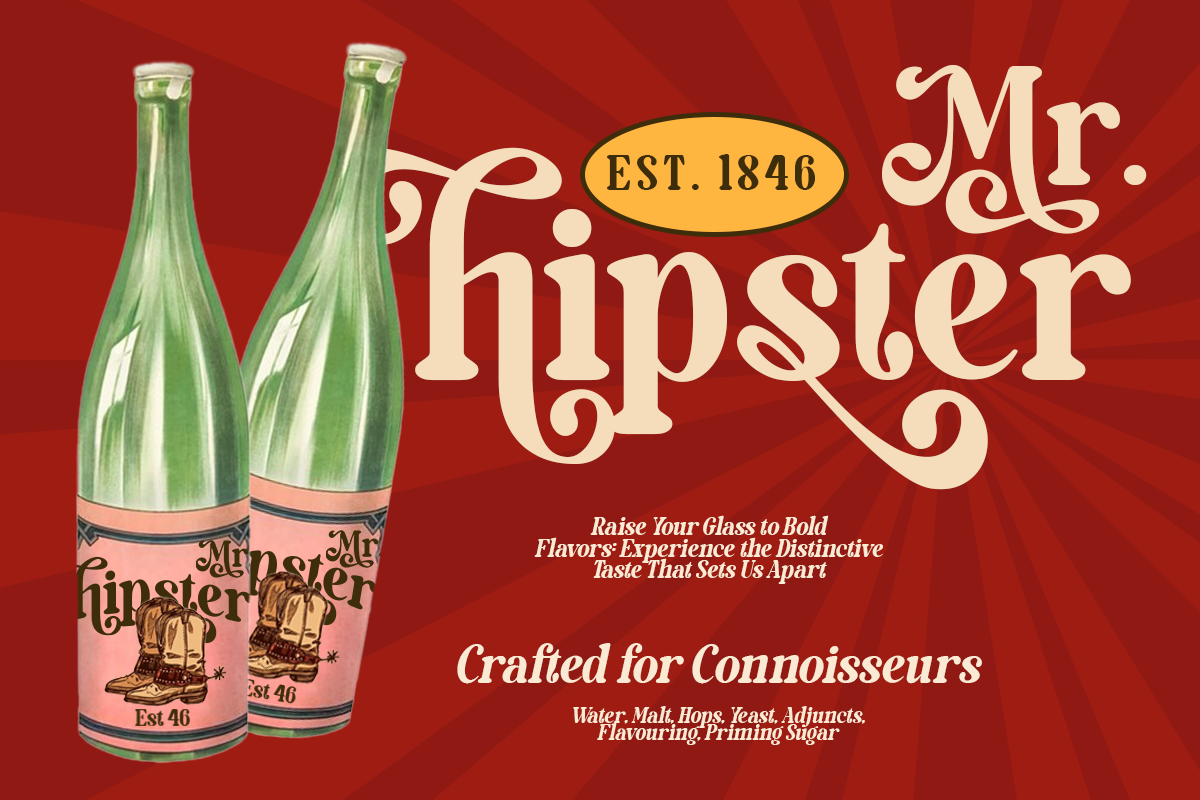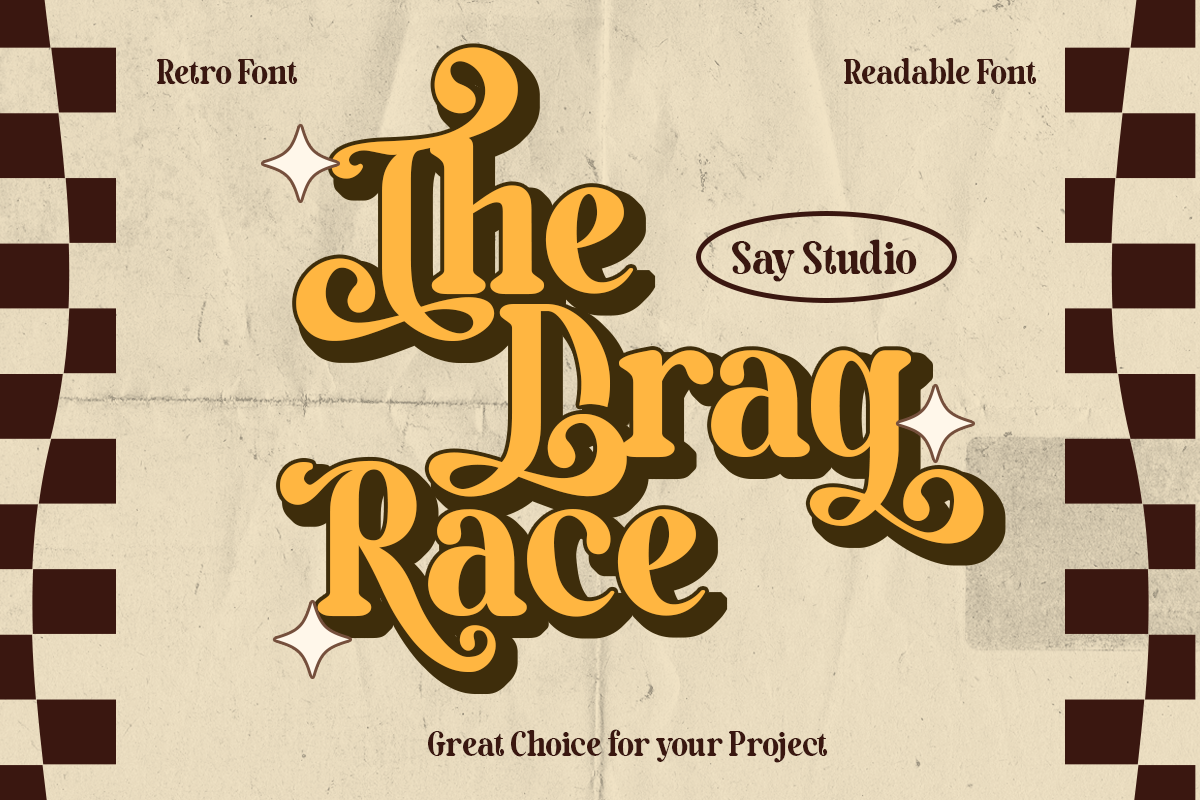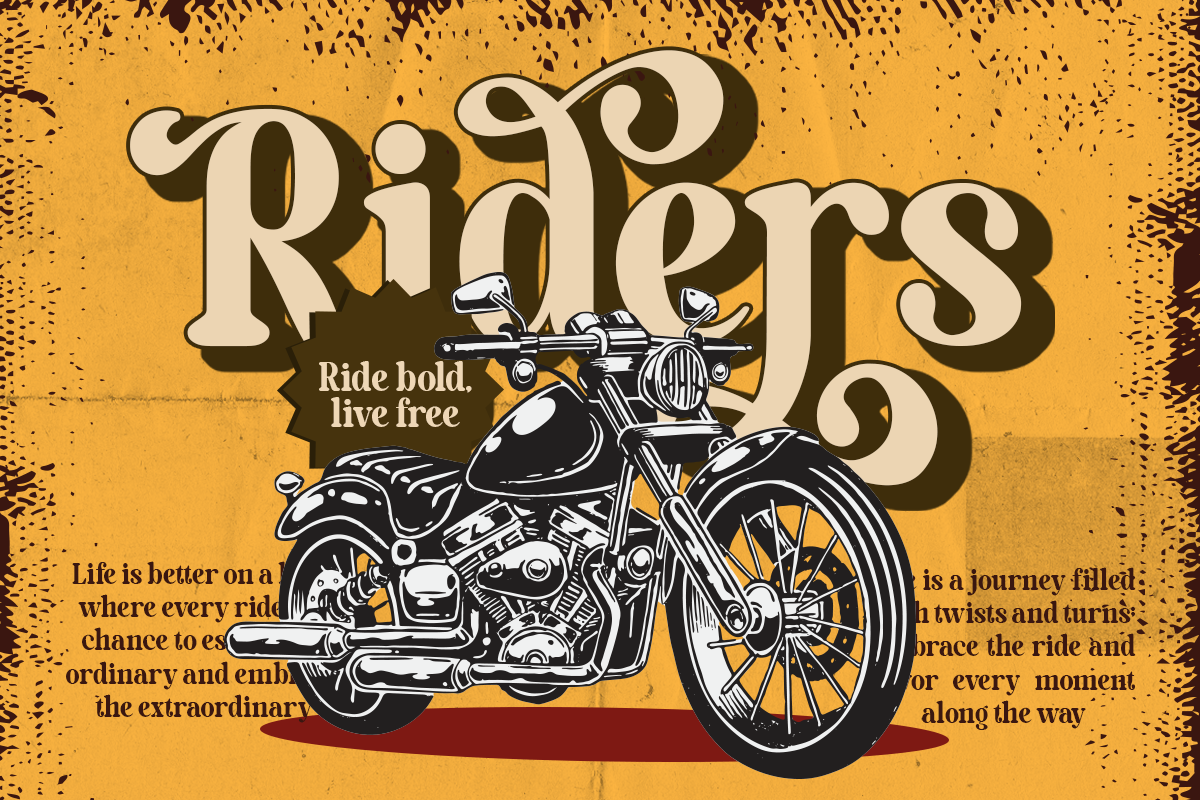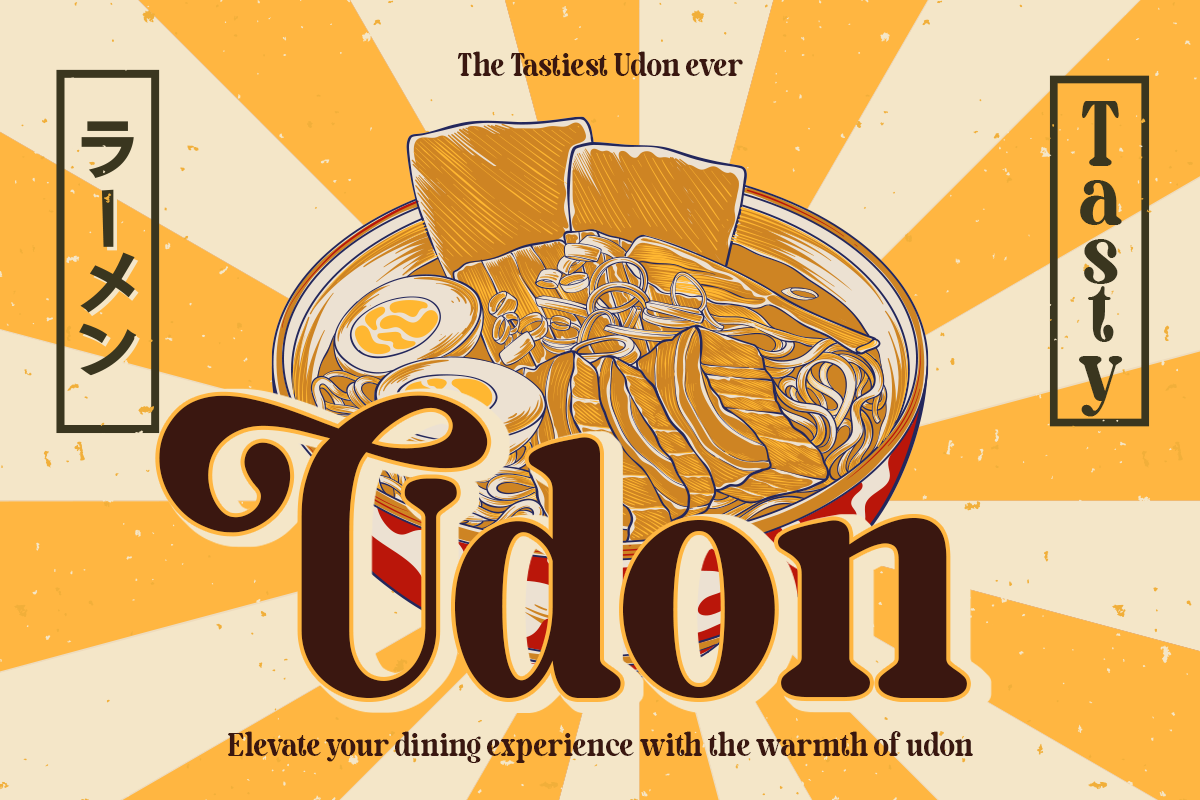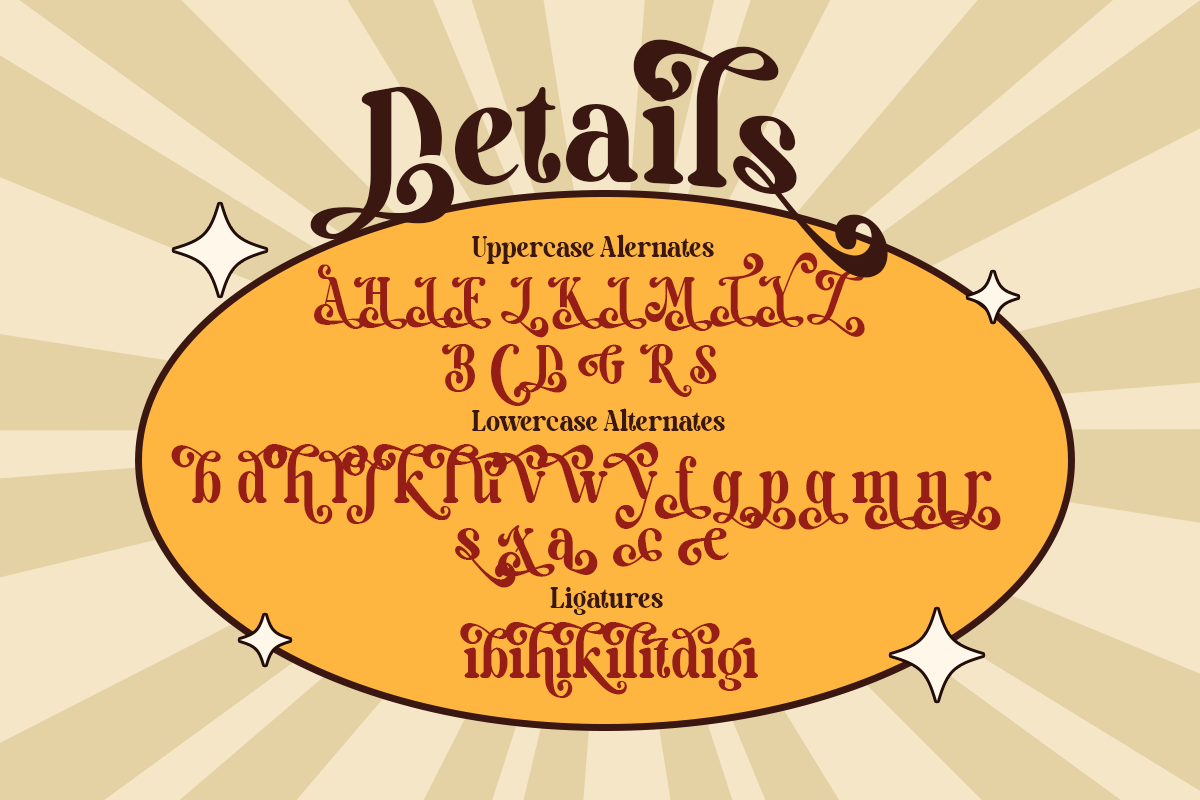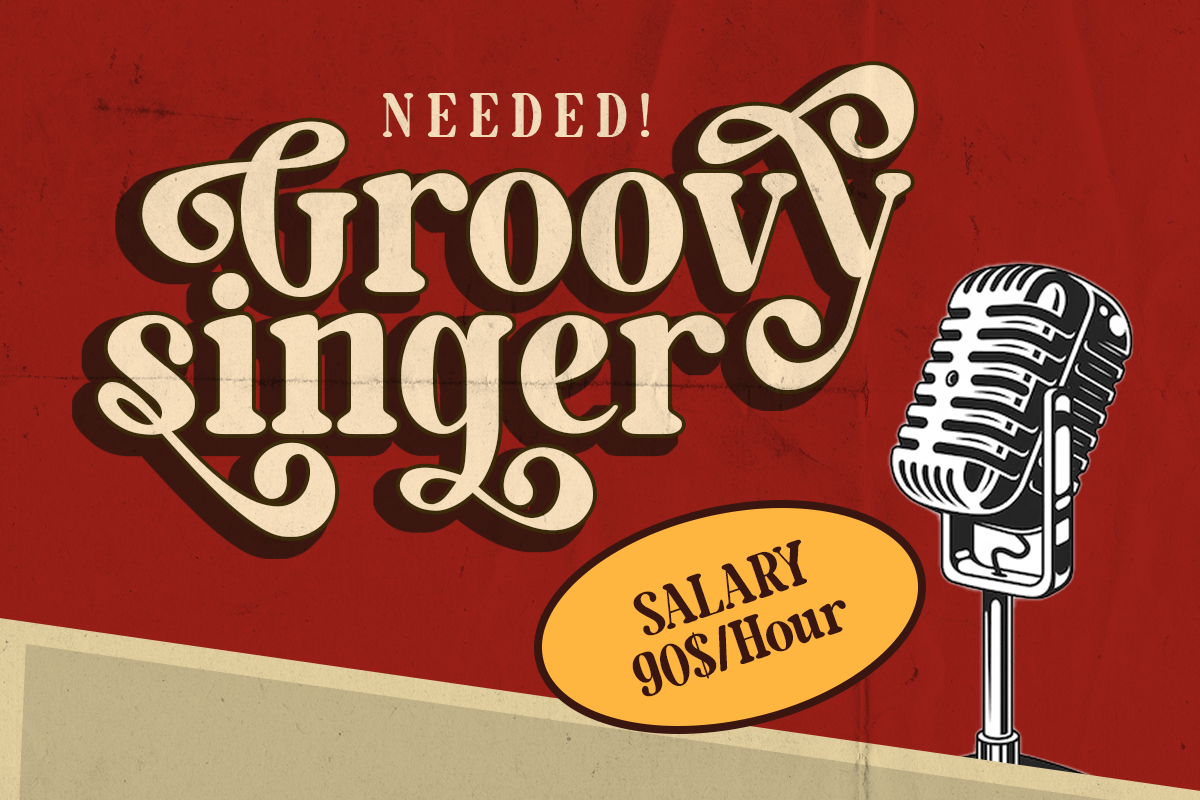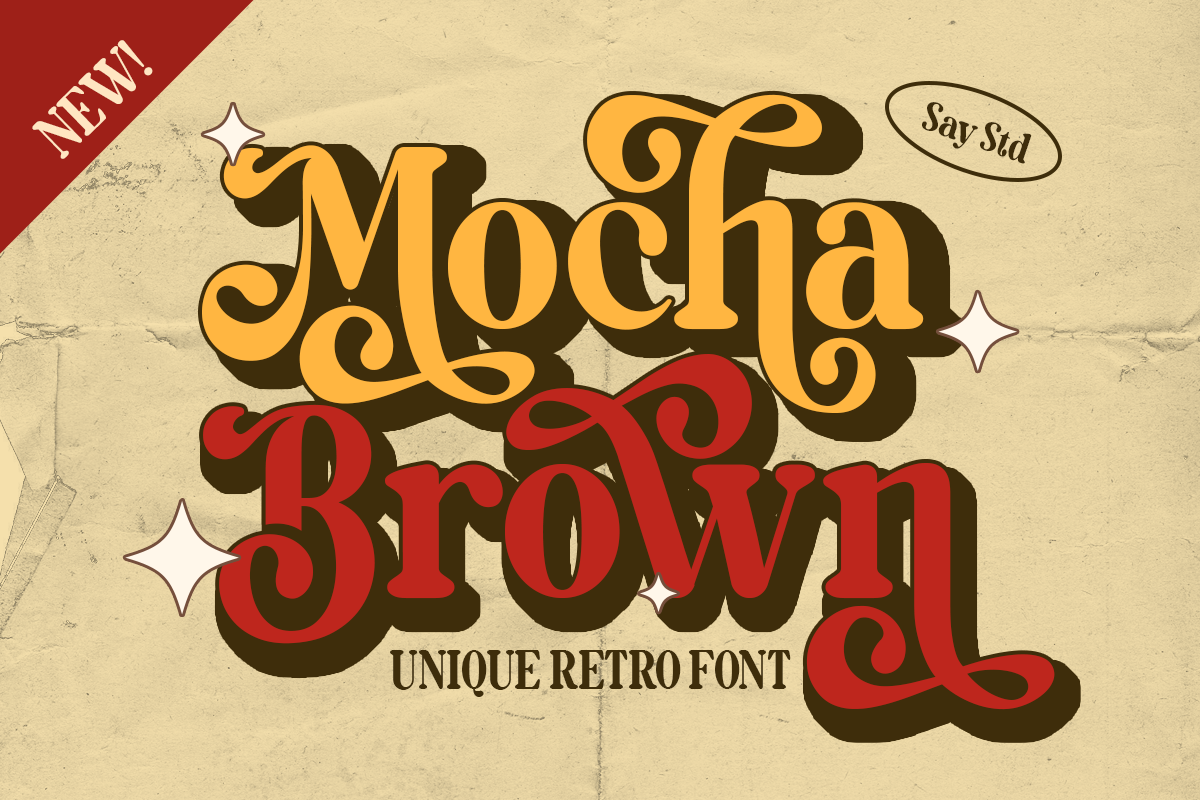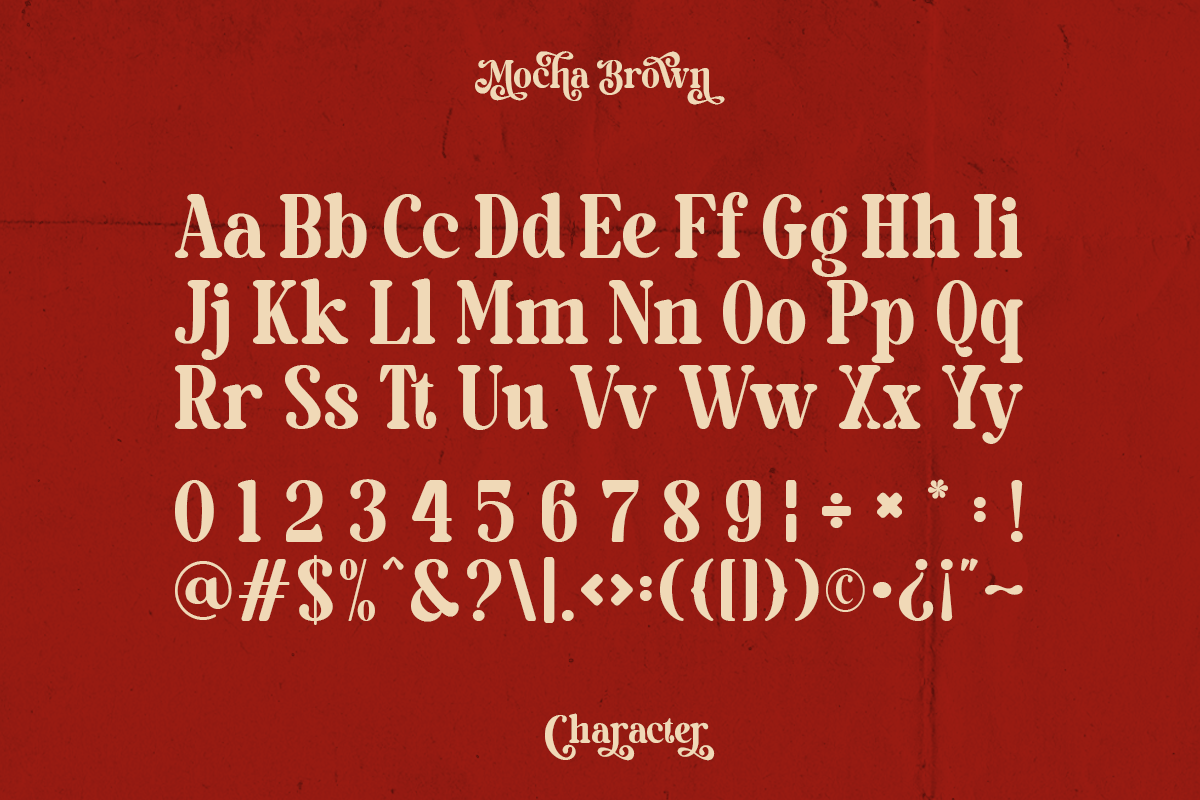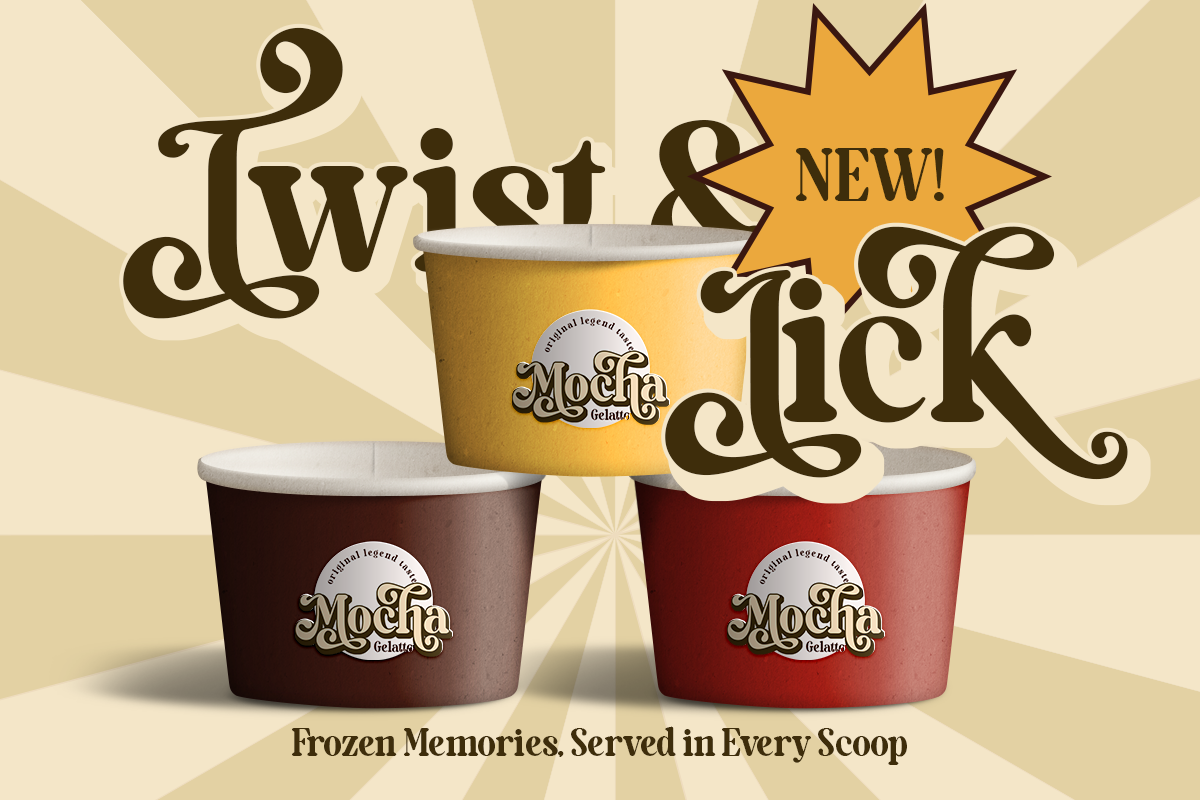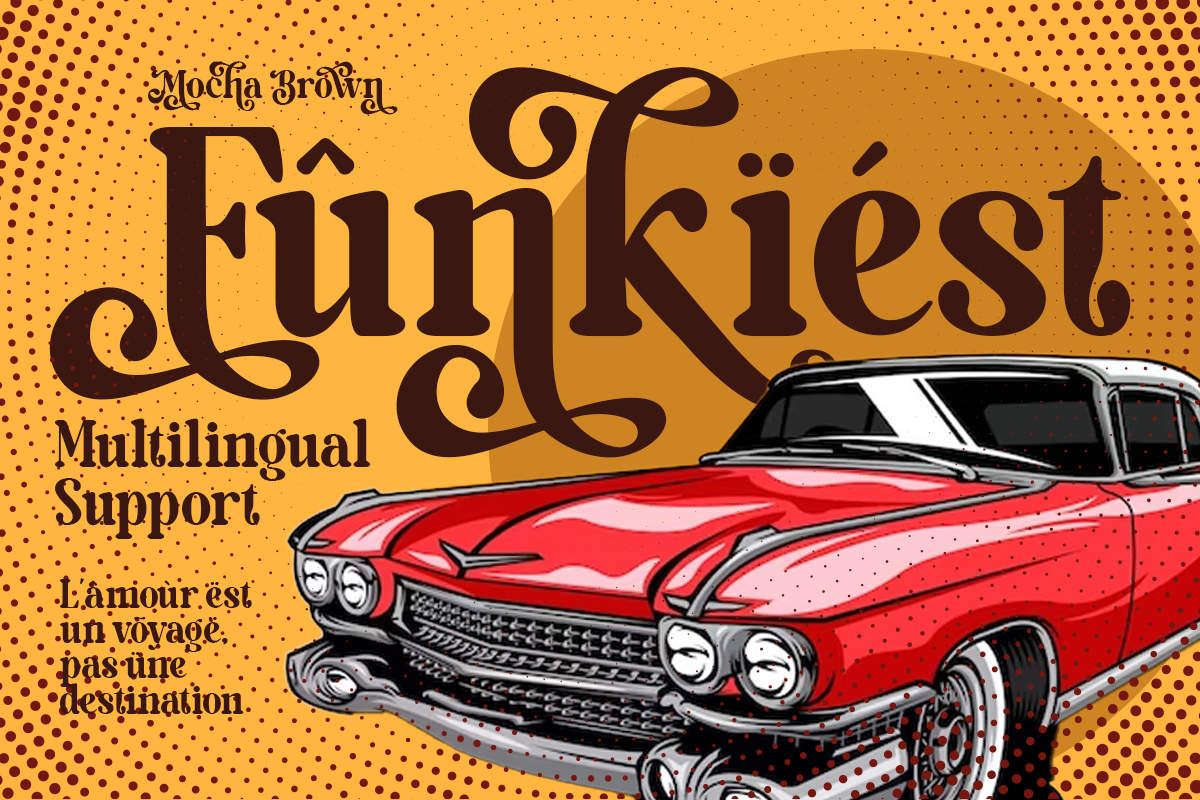
Mocha Brown - Unique Retro Font
Introducing, Mocha Brown. A Unique Retro Font that will take you back to the 70s vibes. This typeface has a unique alternate version so you can create a retro effect font easily. This font is perfectly made to be applied especially on logos, and various other formal forms such as invitations, labels, logos, magazines, books, greeting/wedding cards, packaging, fashion, makeup, stationery, novels, labels or any type of advertising purposes.
- alternates